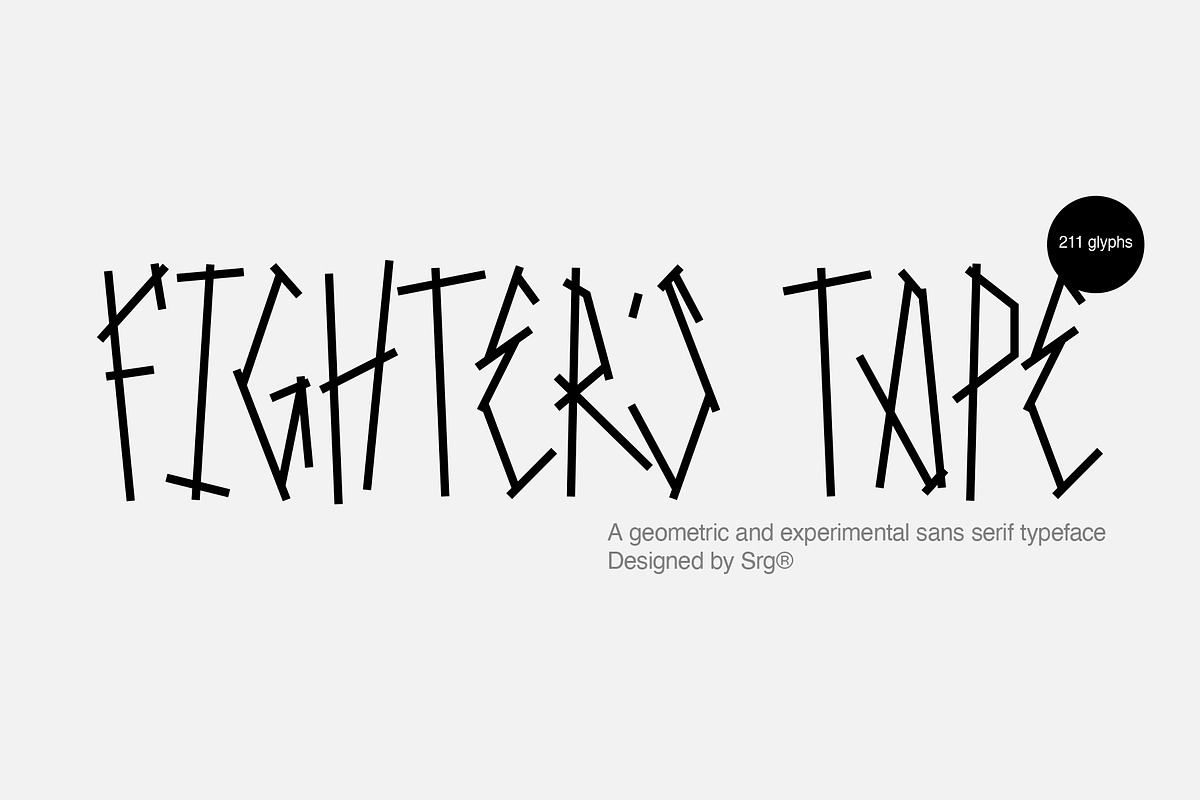
The Srg®-Fighter's tape font Free Download is a bold and dynamic typeface designed to bring an aggressive, sports-inspired look to your projects. Featuring rugged, tape-like letterforms, this font is perfect for creating designs with a strong and energetic feel. Ideal for logos, sports branding, action movie posters, and more, this font brings a sense of power and toughness to any creative endeavor.
Srg®-Fighter's tape font Free Download is the perfect choice for designers looking for a typeface that combines strength and personality. Whether you're designing for sports, entertainment, or action-oriented brands, this font will help your project make a bold statement. Download it today and give your designs a distinctive, edgy flair!